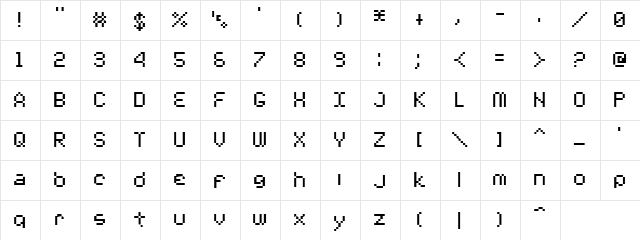
00 Starmap Truetype Regular
Design Context for 00 Starmap Truetype Typeface
00 Starmap Truetype offers clean, dependable letterforms without strong stylistic allegiance, making it a practical choice for designers who need flexibility.